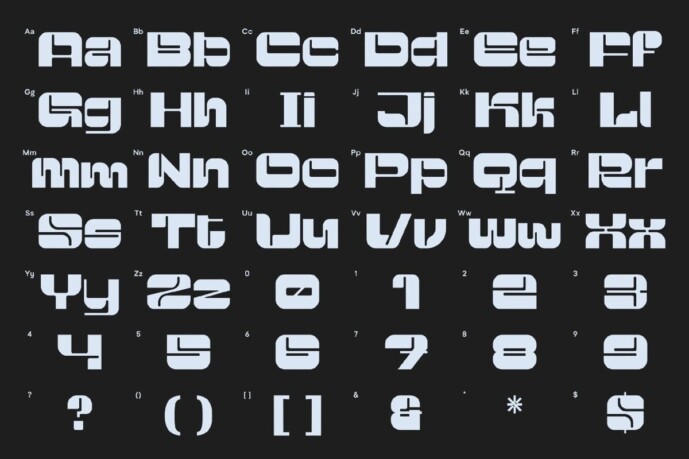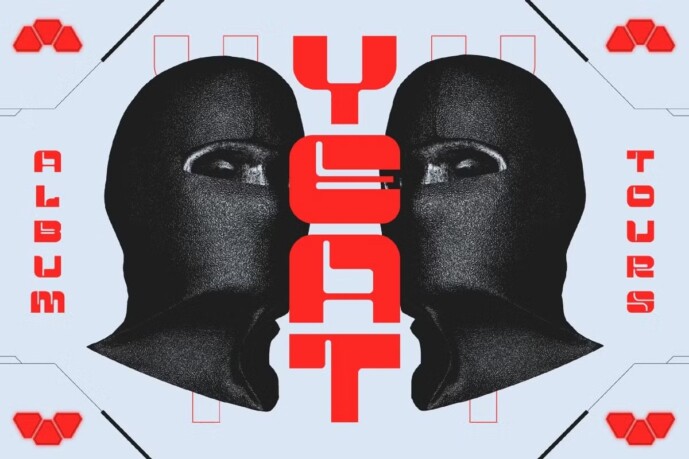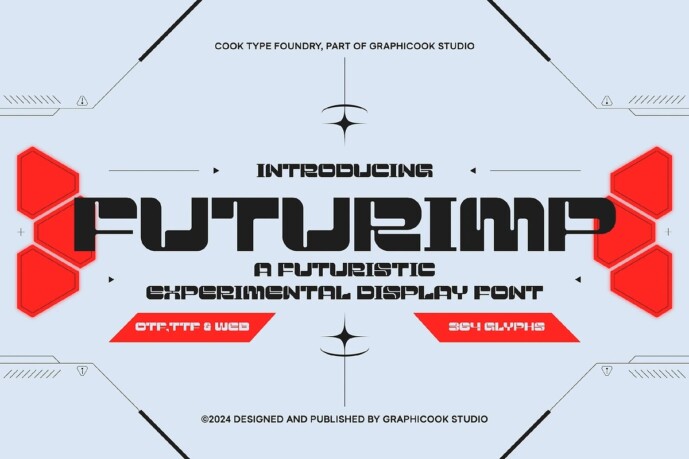
Futurimp Font
Futurimp Font, combines futuristic and experimental styles into a unique form. Perfect for album covers, event branding, apparel, and more.
Futurimp is perfect for headlines, logotypes, magazines, packaging, quotes, movies, games, cover albums, book covers, and flyers, it’s a perfect solution for creating eye-catching designs that stand out in any context.